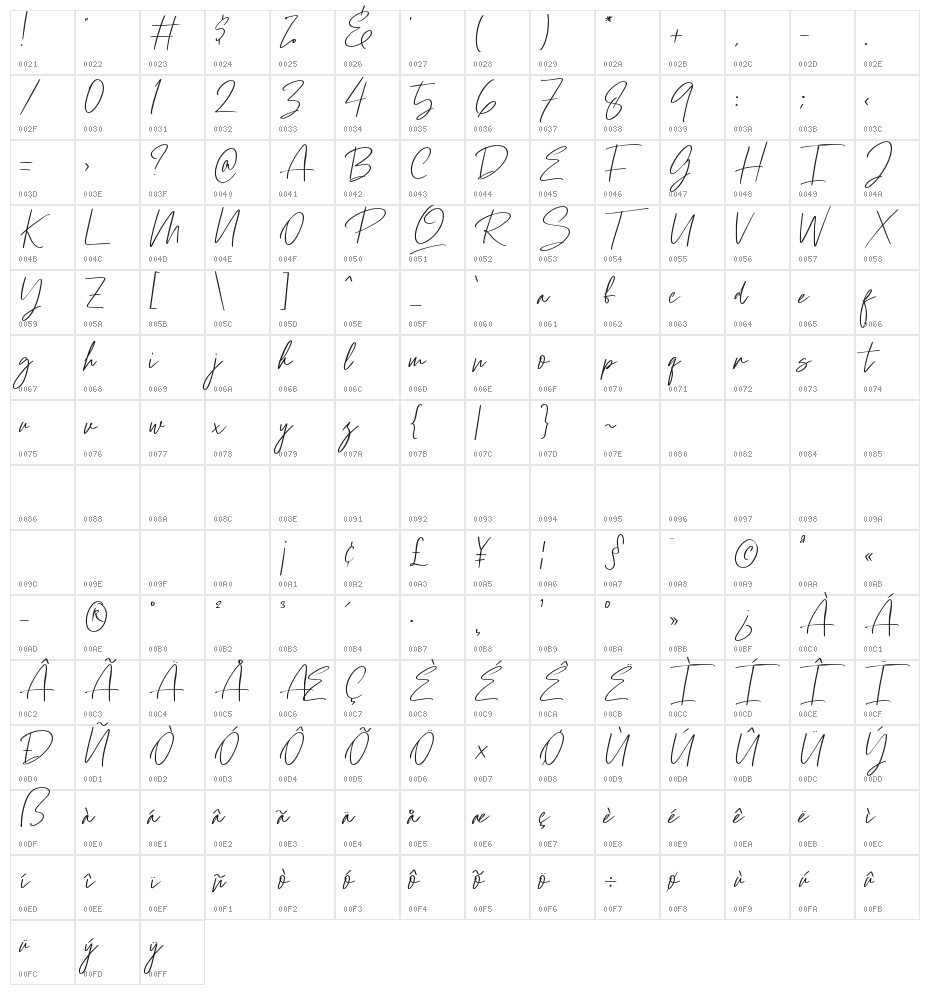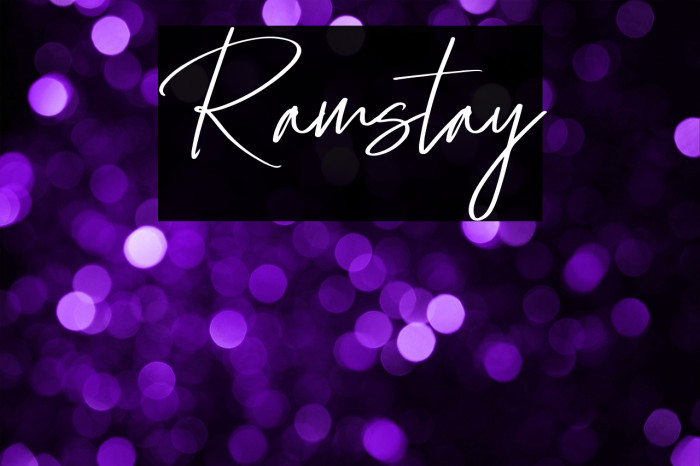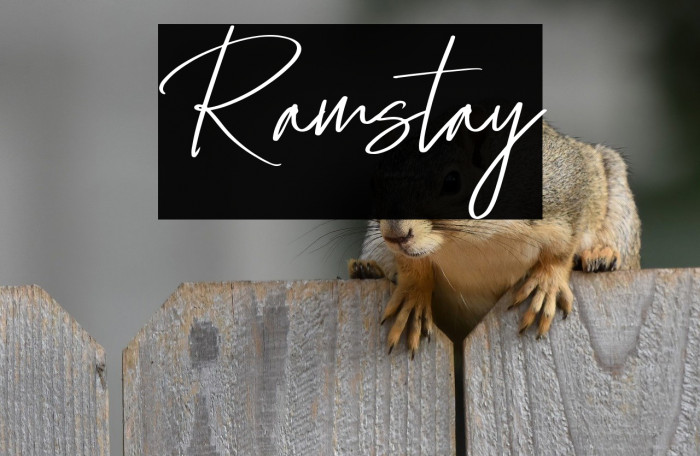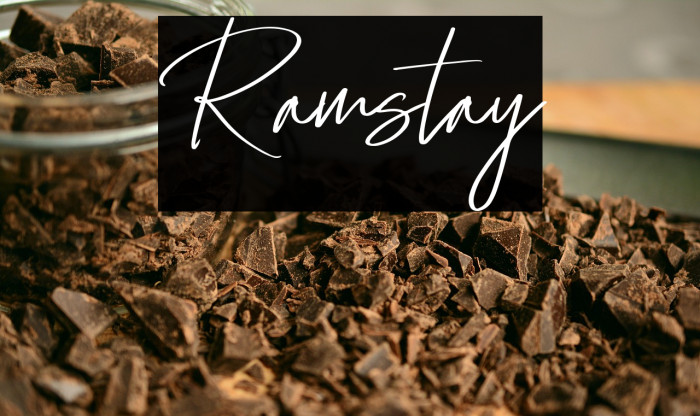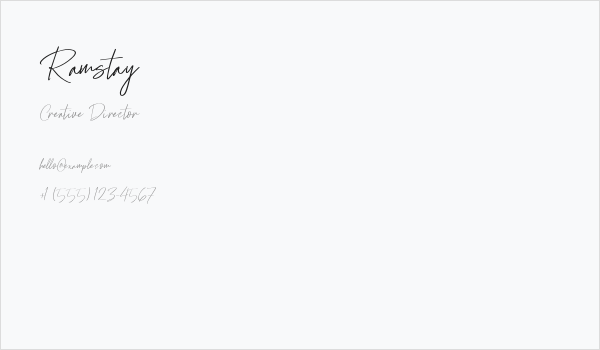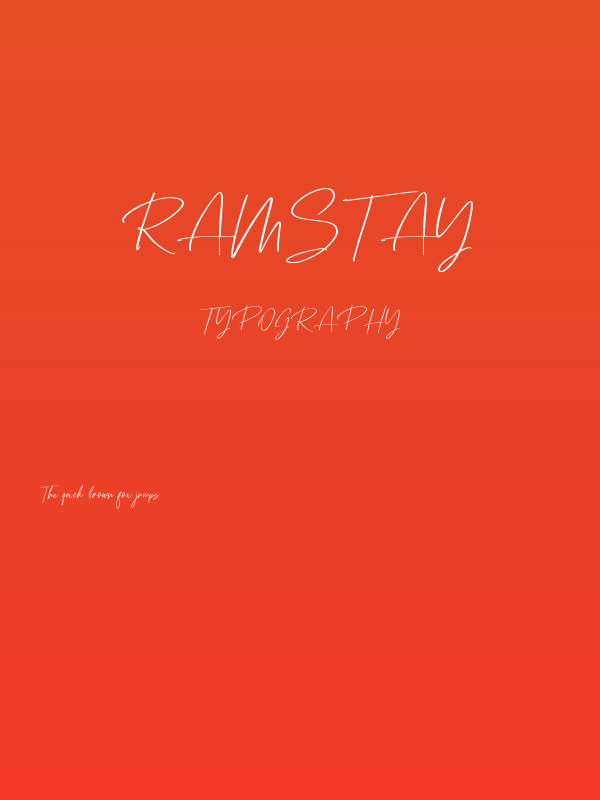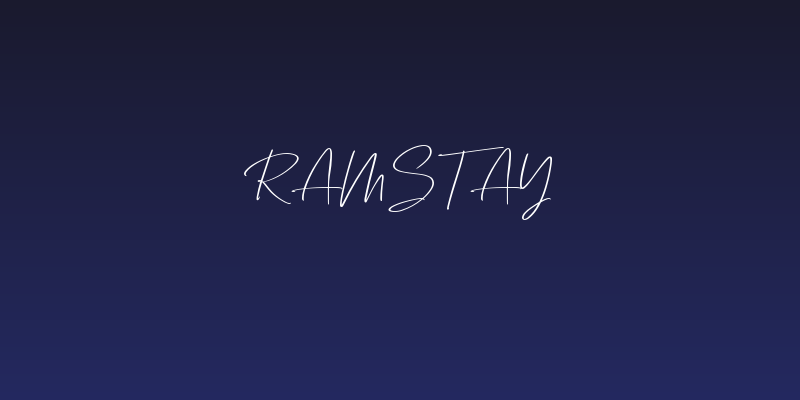
Ramstay Font
Ramstay Description
This font features a flowing, cursive style with elegant, sweeping lines that give it a handwritten appearance. The uppercase letters are tall and slightly slanted, with a consistent stroke width that adds to its graceful look. The lowercase letters maintain the same fluidity, with some characters extending below the baseline, enhancing its dynamic feel. Numbers and special characters are designed to match the overall aesthetic, ensuring a cohesive look across all elements. The font's design is both sophisticated and approachable, making it suitable for a variety of creative applications.
Overall StyleElegant
Use CaseLogos, Invitations, Personal Branding
Proposed ProjectsIdeal for wedding invitations, personal branding, greeting cards, and elegant packaging designs.